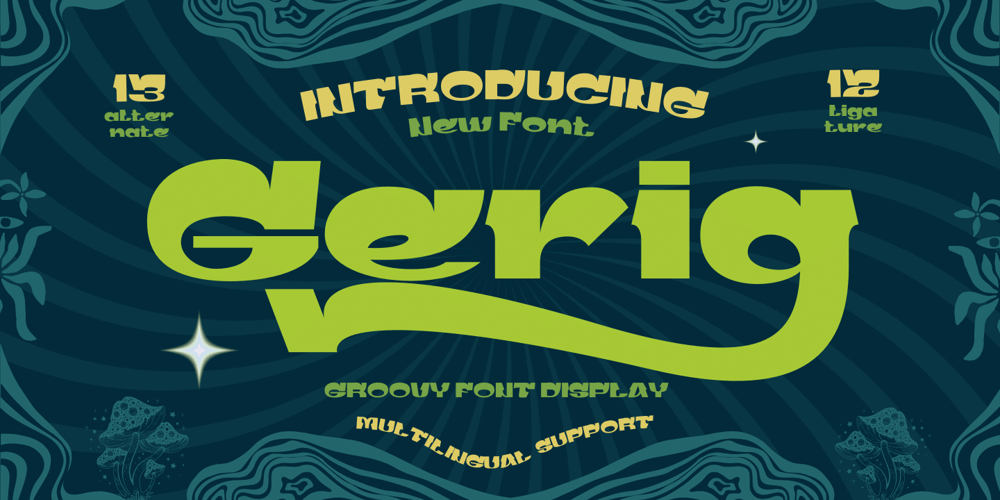
Gerig Font Family was designed by Rozikan and published by Twinletter. Gerig contains 1 styles and family package options. Gerig is a unique, stylish, and fun font that is unlike most other fonts. Having an anatomical shape between thin and thick lines makes it beautiful and visually unique from most other fonts make your project more stunning by adding this font.It is a font that every designer, writer, and programmer should have in their library. because this font is unique, stylish, and fun. Cool ligature and alternative fonts help add a unique flair to your project. Make the most of your designs by using this font today.What’s Included : Standard glyphs Iso Latin 1 Simple installations We highly recommend using a program that supports OpenType features and Glyphs panels like many Adobe apps and Corel Draw, so you can see and access all Glyph variations. PUA Encoded Characters – Fully accessible without additional design software. Fonts include Multilingual support